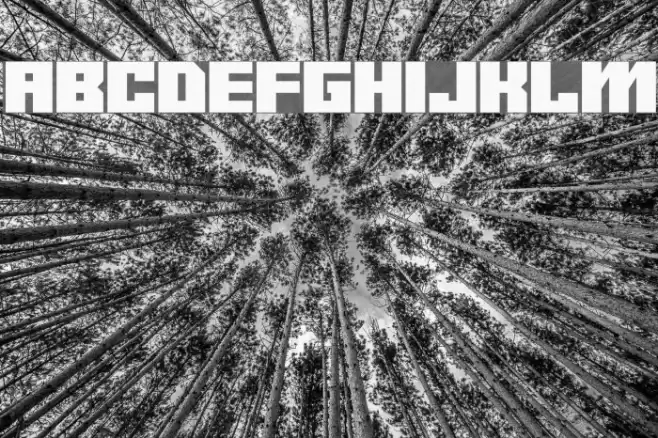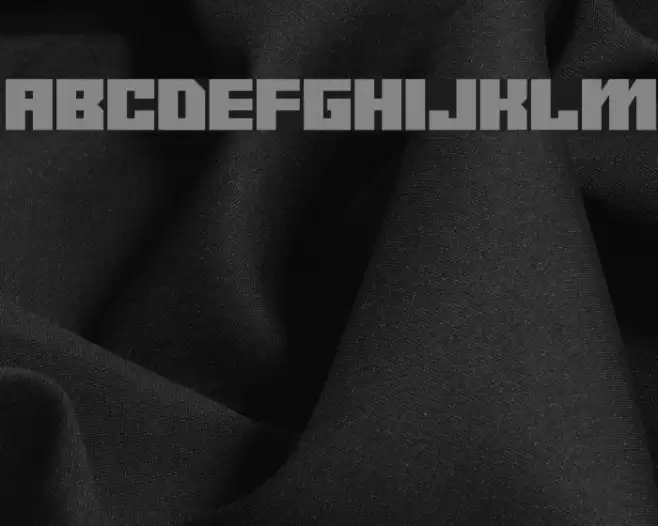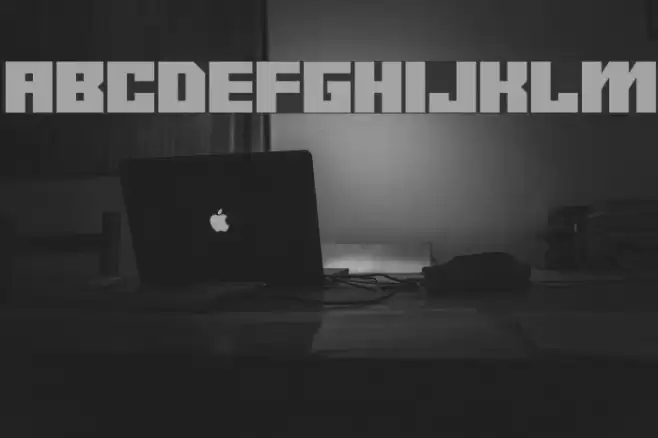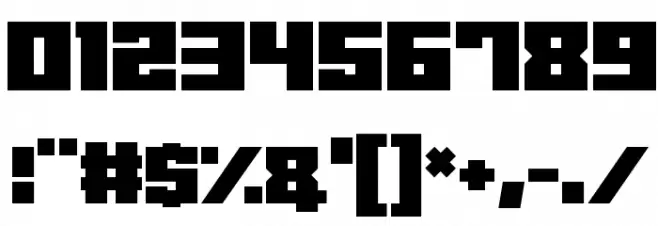
Android y Font
Android y Description
This font features a bold, geometric style with a futuristic and digital aesthetic. The characters are constructed with sharp angles and straight lines, giving them a blocky, robust appearance. The uppercase and lowercase letters maintain a consistent height, contributing to a uniform look. The numerals and special characters follow the same design principles, ensuring cohesion across all elements. This font's strong presence makes it suitable for impactful designs where readability and modernity are key.
A bold, geometric font with a futuristic and digital style from Uncategorized fonts.
- Proposed Projects: Ideal for tech-related branding, video game titles, posters, and digital interfaces.